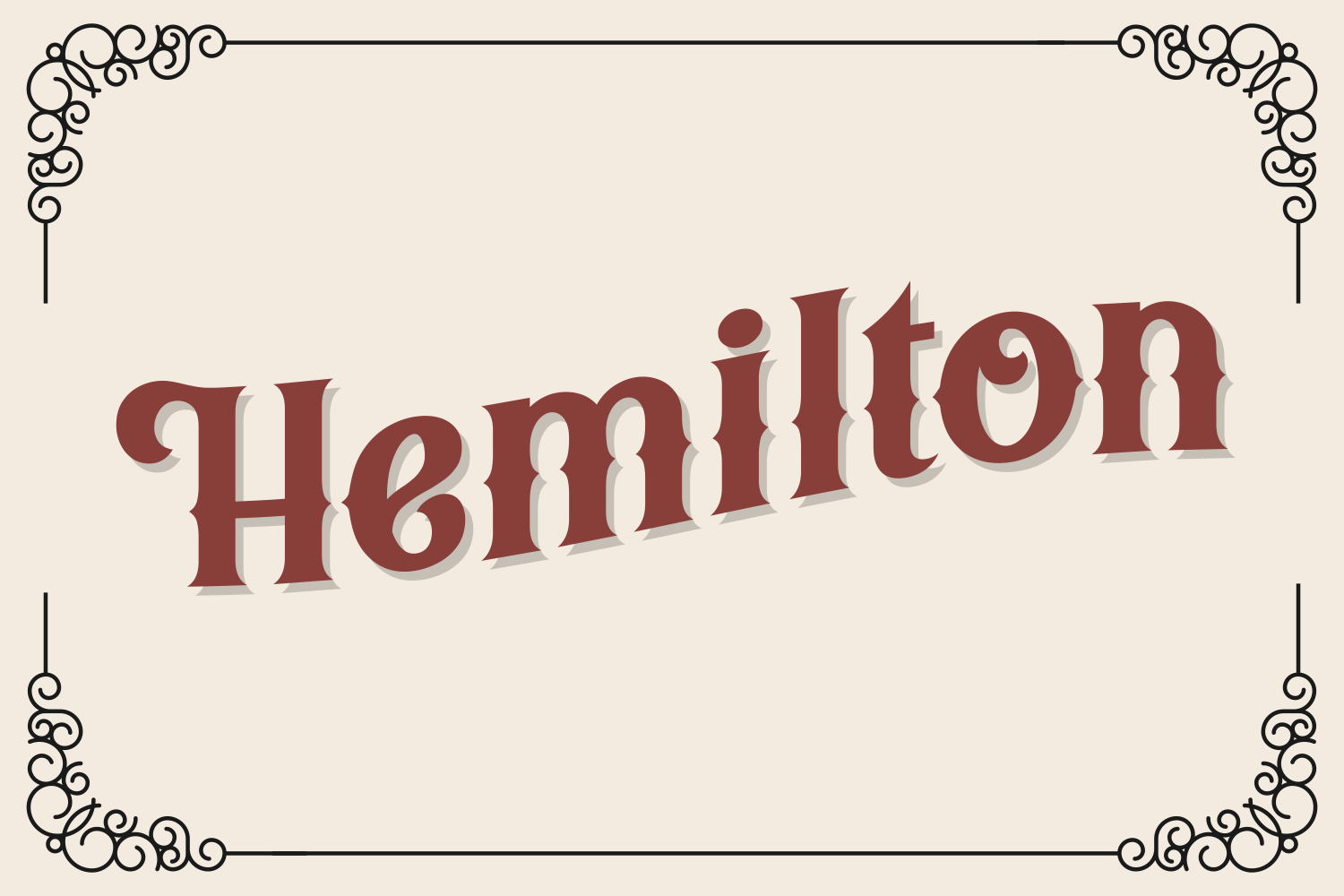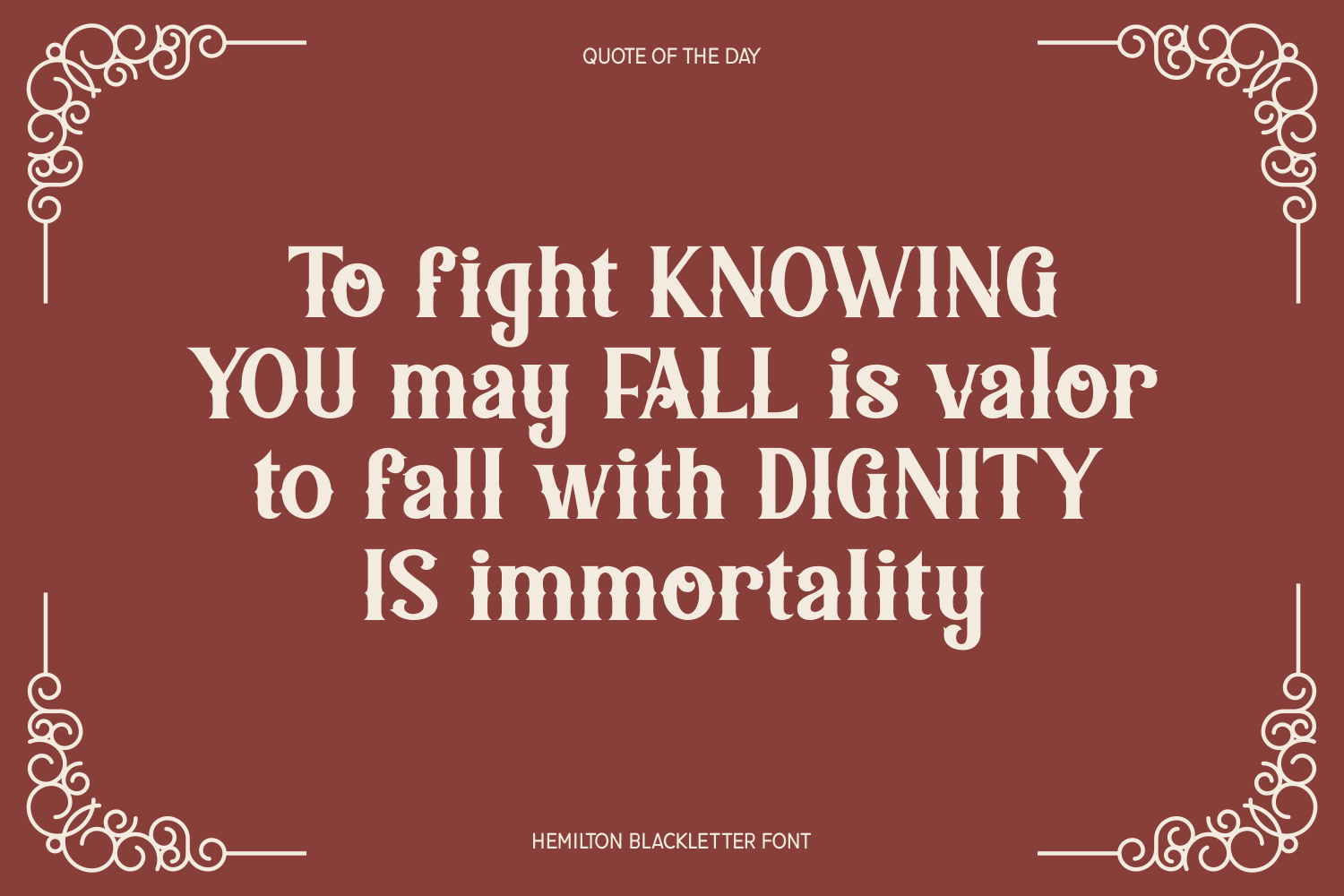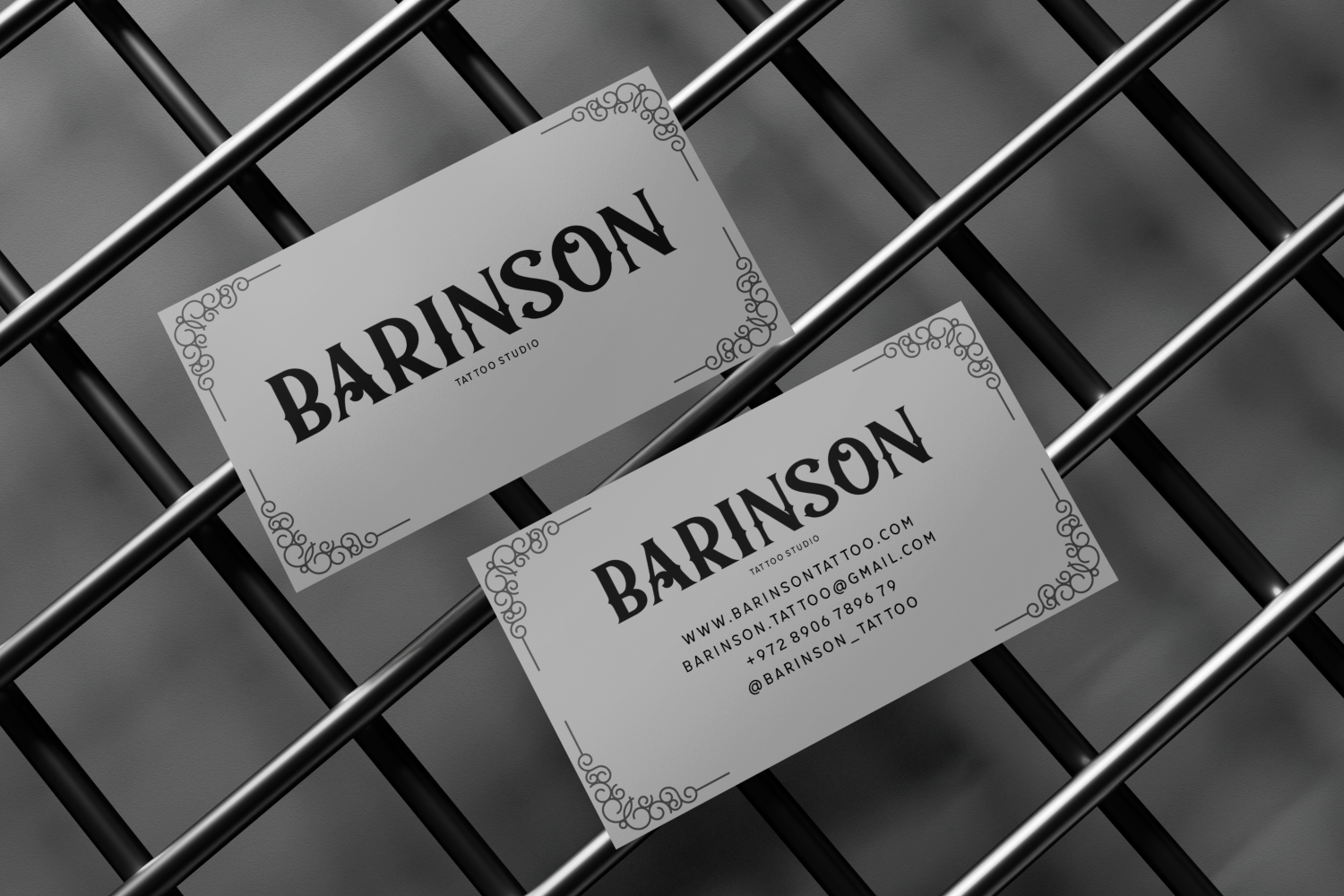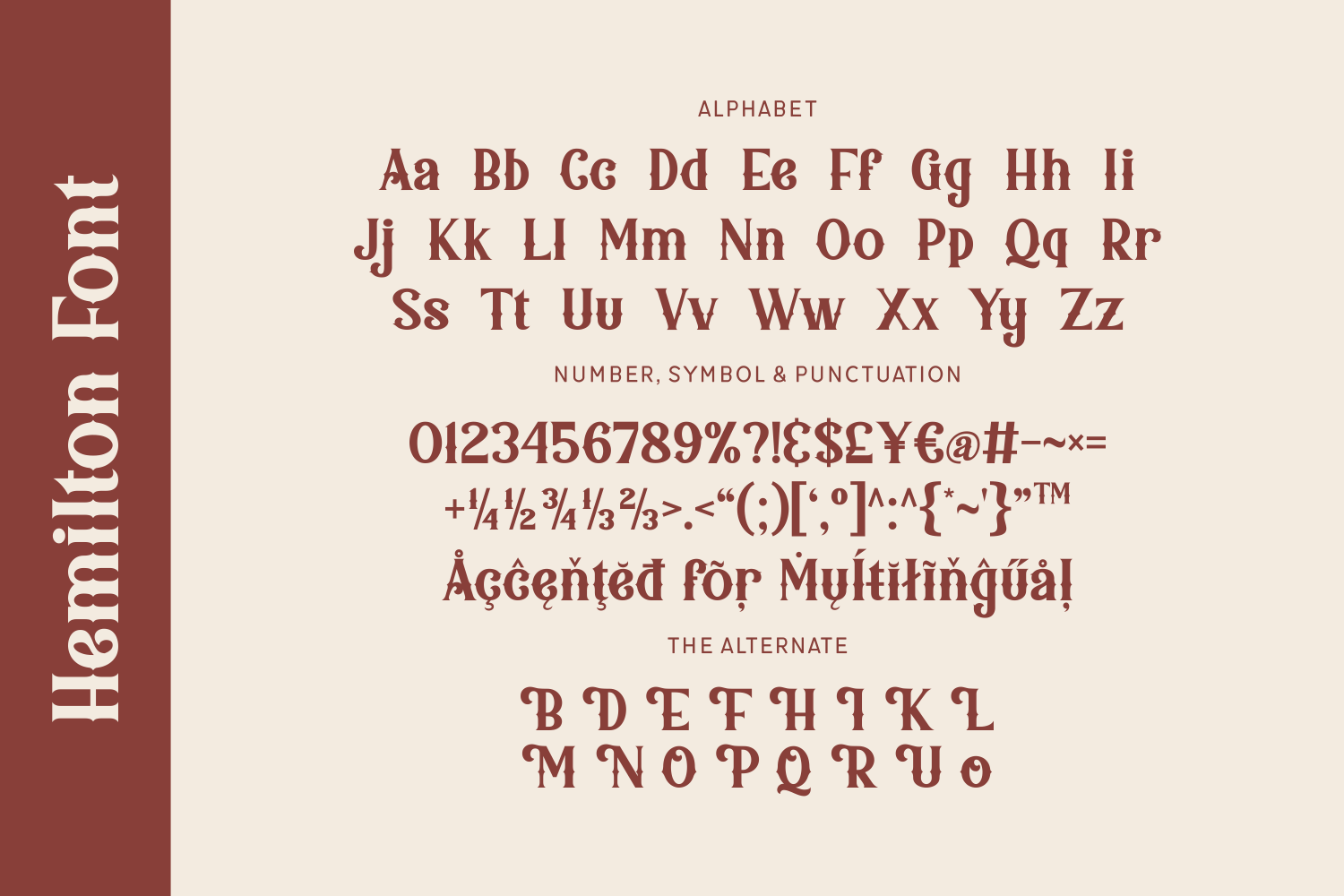
Hemilton is a charming vintage blackletter font with soft curves and an inviting, retro character. Its subtle shadows and flowing rhythm make it ideal for café logos, boutique labels, signage, and nostalgic design work that calls for elegance with a touch of warmth.